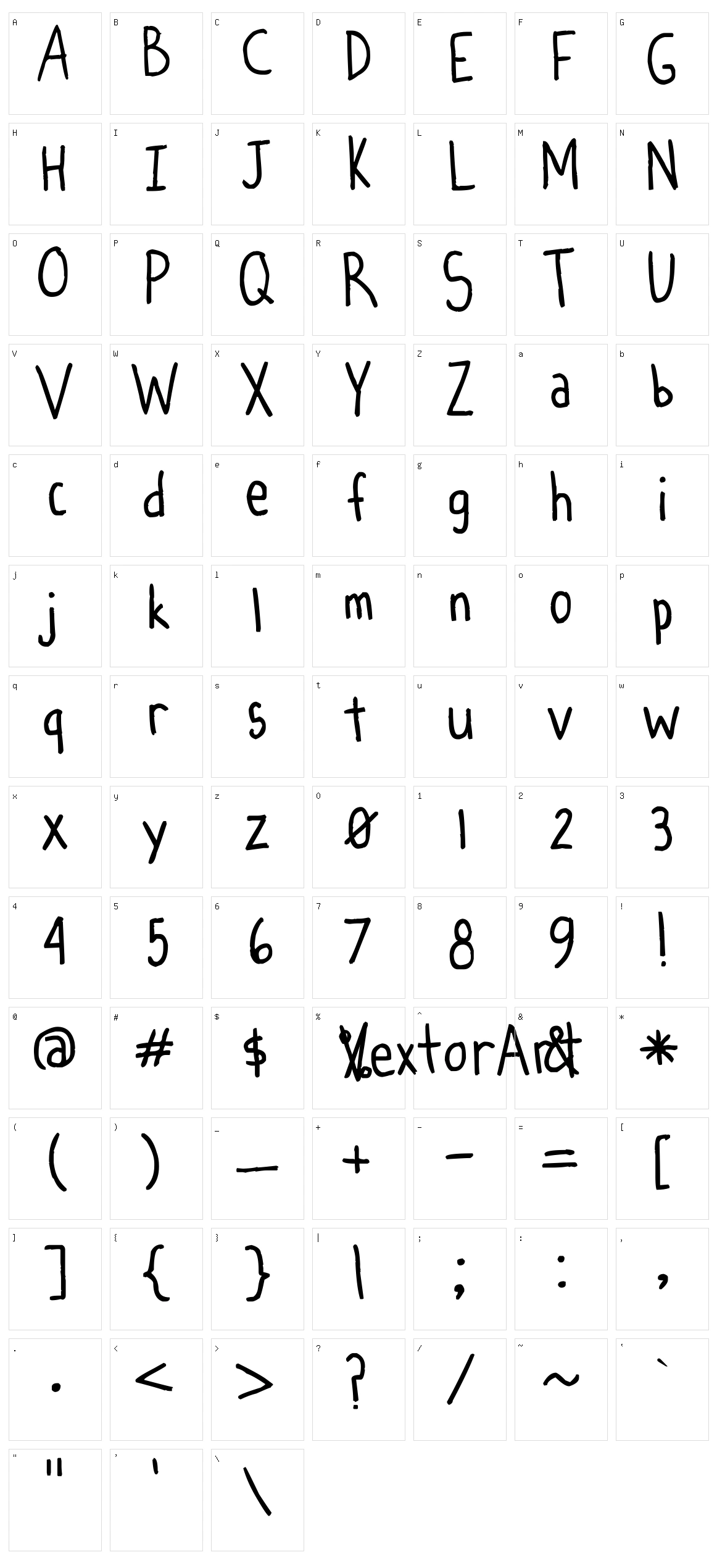
The free font Spindly Legs is carefully designed by Stork, showcasing a thoughtful balance of creativity and usability and falls under the Script font style. When you download the ZIP file, it contains only 14.32 KB of font files, making it lightweight and quick to download. Please review the license details below to understand permitted usage and distribution rights. If license information is not available, we recommend using this font for personal projects only or contacting the author directly for commercial usage permissions.